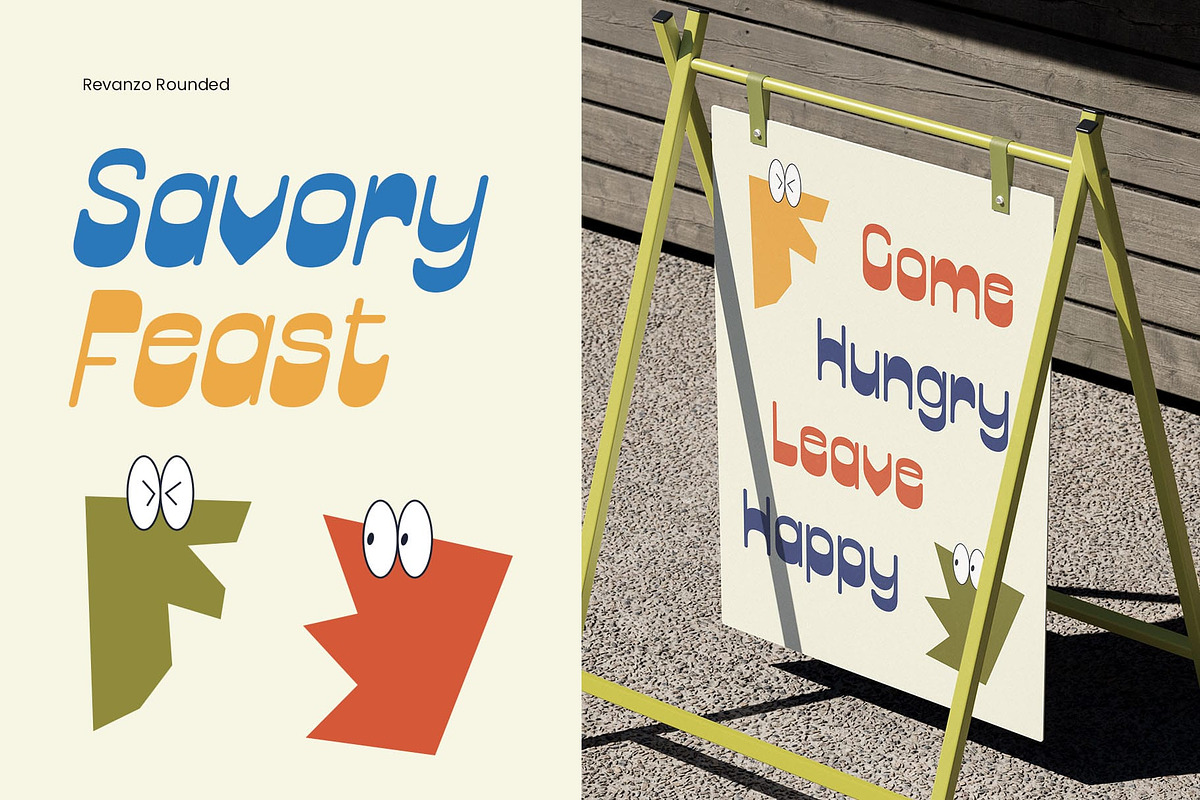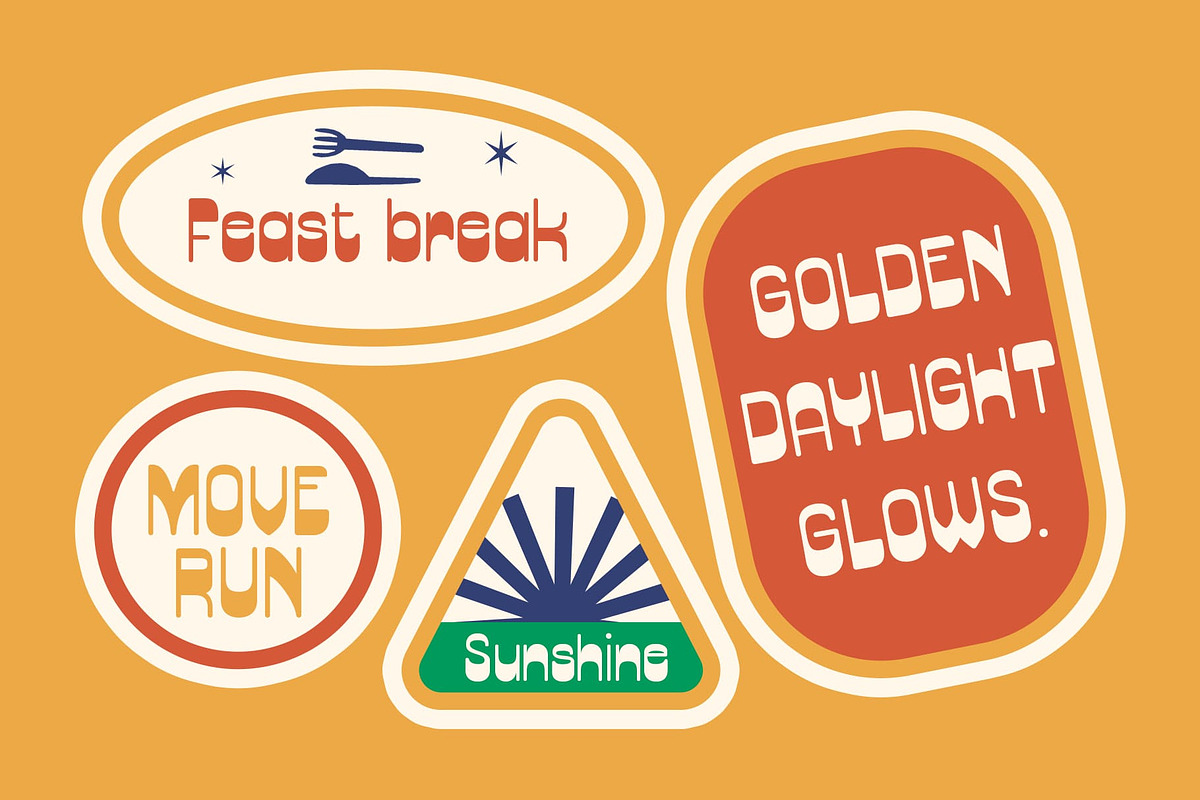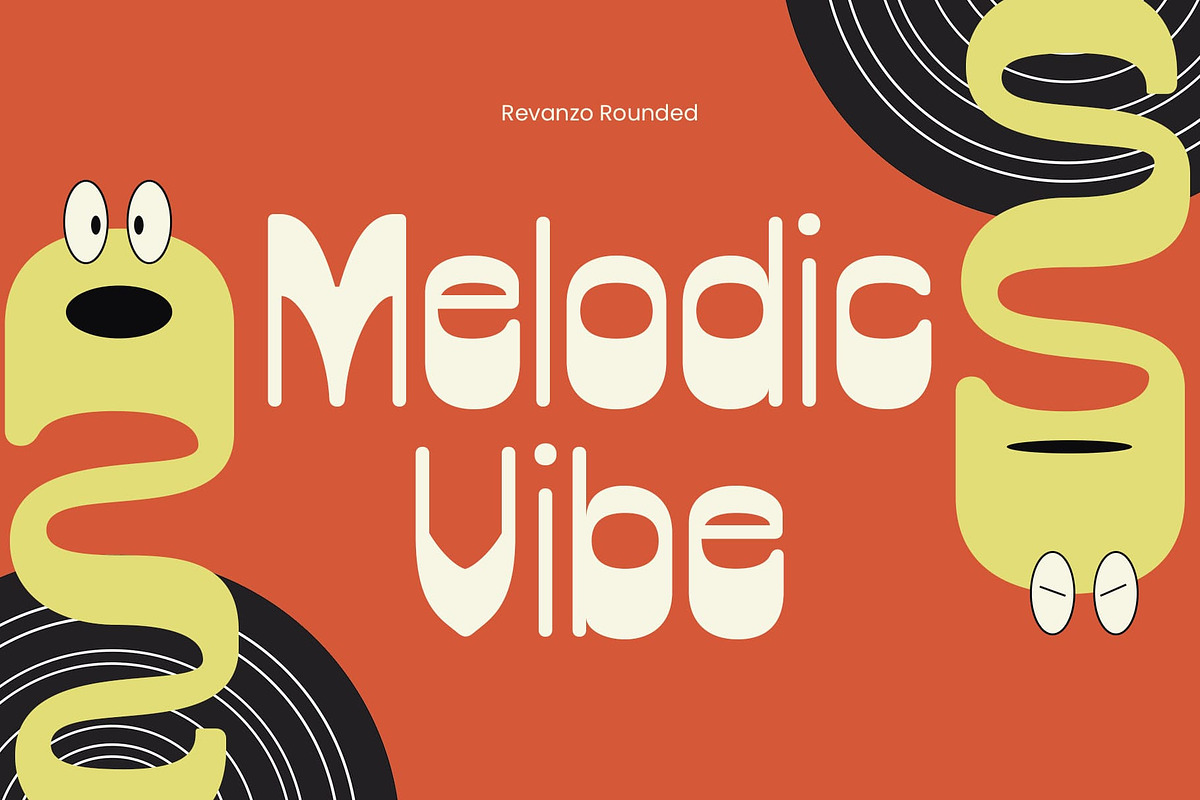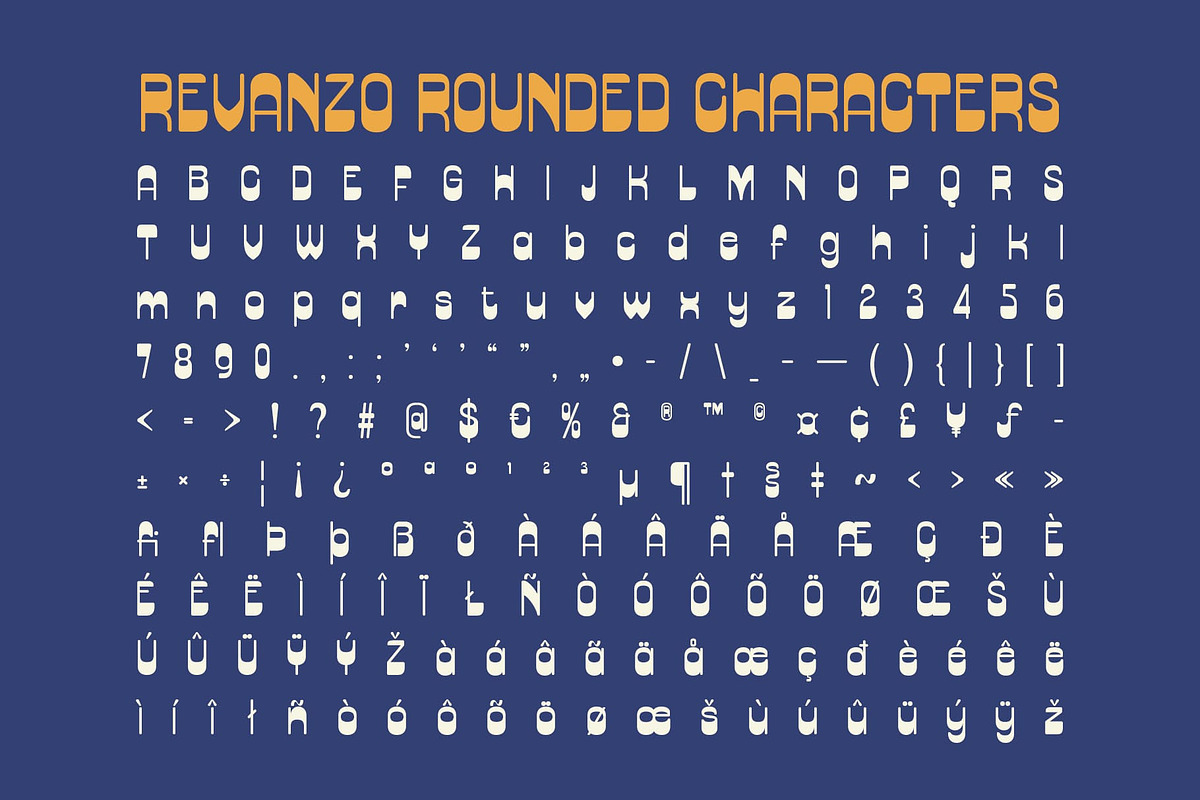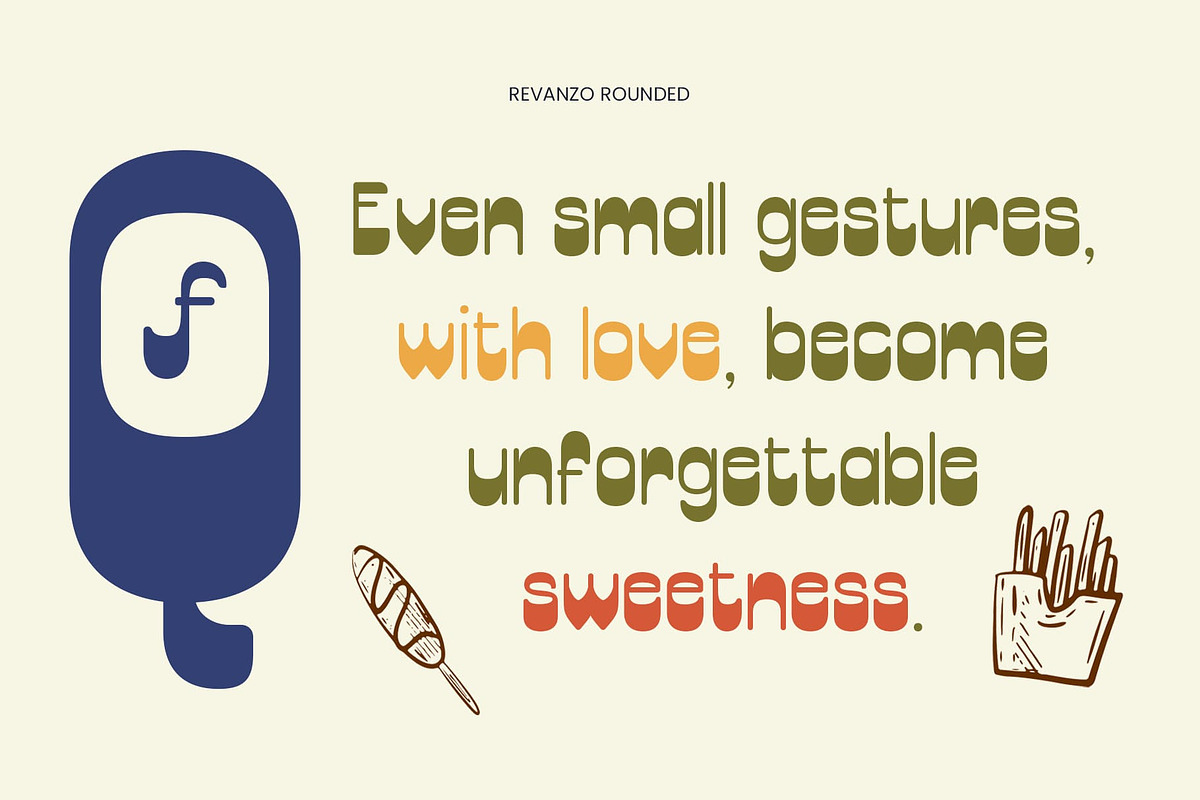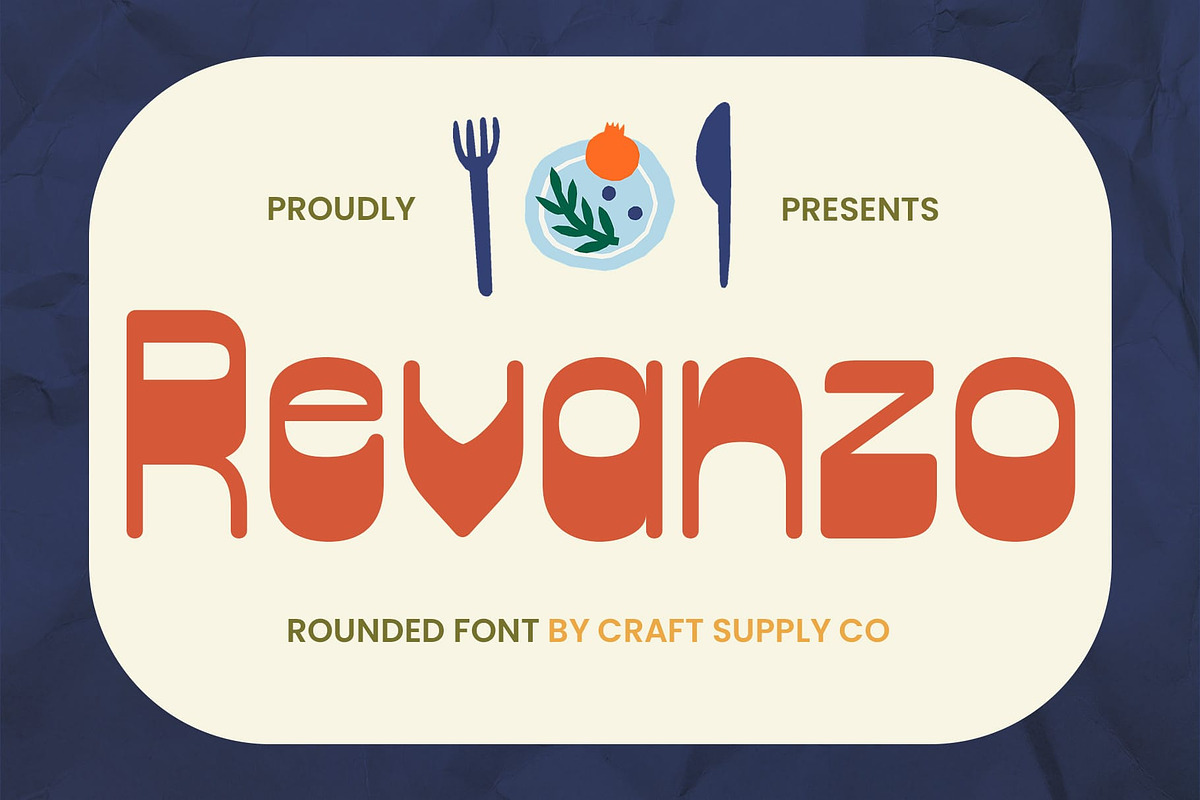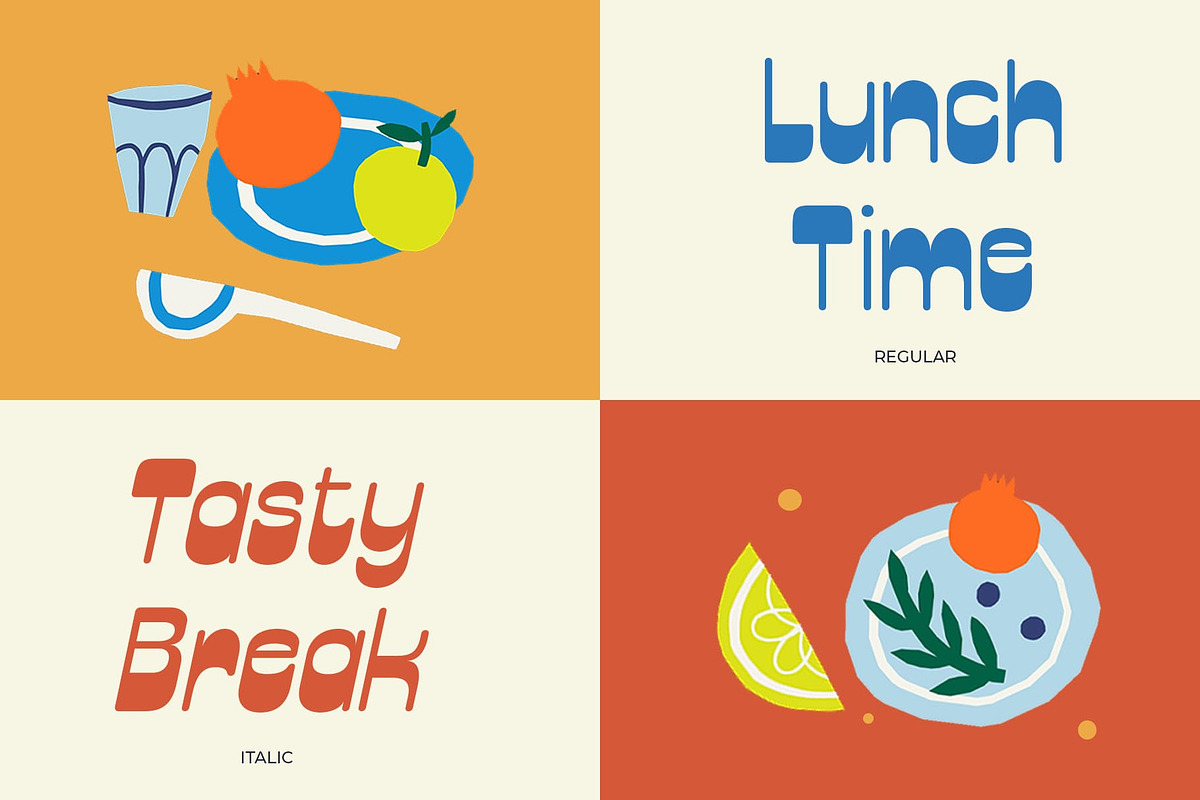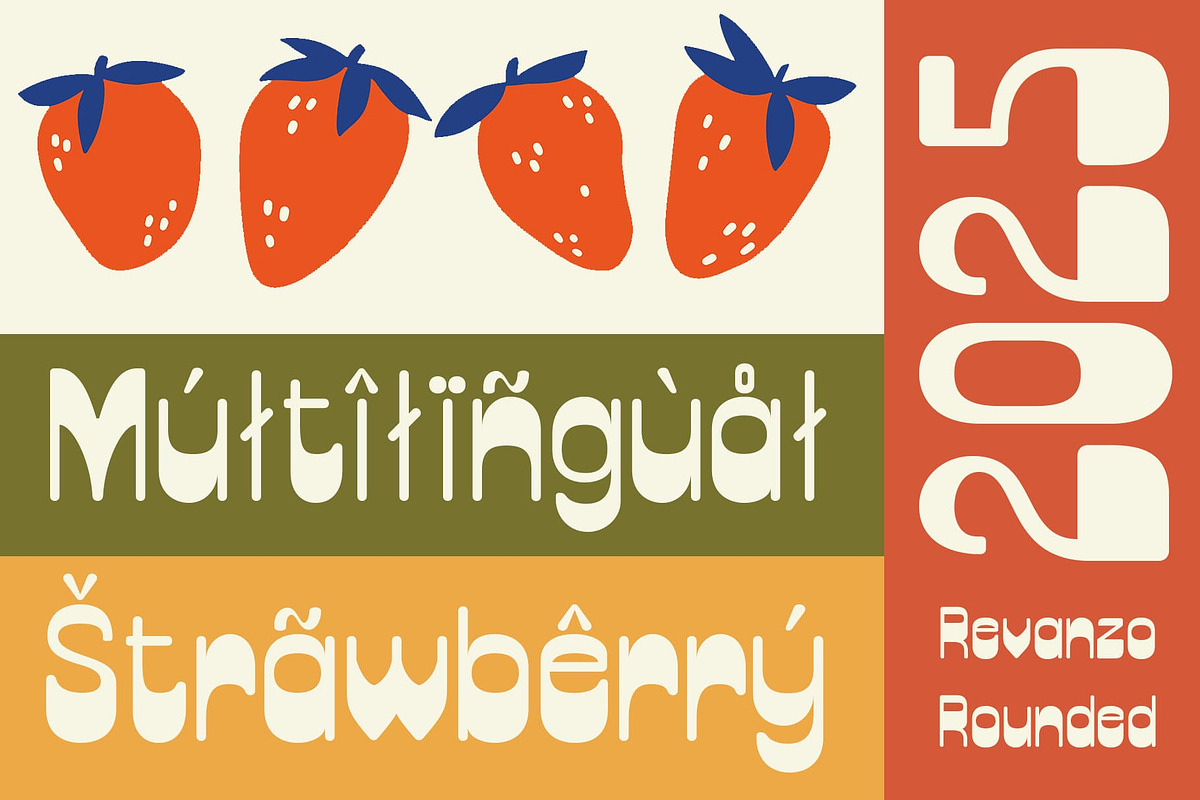
Revanzo Rounded
Revanzo Rounded Font – Retro Charm with a Soft Bold Twist
Reverse Contrast Sans-Serif with Rounded Style Revanzo Rounded is a sans-serif display font that blends a unique reverse contrast structure with smooth, rounded terminals. This combination creates a standout retro aesthetic that feels both bold and inviting—perfect for eye-catching, personality-rich design.
Reverse Contrast for Visual Interest The reversed contrast of thick horizontals and thinner verticals gives Revanzo Rounded a fresh and unexpected typographic rhythm. This unconventional structure injects energy and uniqueness, setting your designs apart from the ordinary.
Rounded Accents for a Friendly Feel Soft, rounded details on each character bring warmth and approachability, balancing the bold construction with a gentle, welcoming tone. It’s a perfect blend of playful and professional.
Retro Vibe with Modern Usability While rooted in a nostalgic aesthetic, Revanzo Rounded is crafted with contemporary clarity in mind. Its retro essence makes it ideal for projects aiming to blend vintage flair with modern appeal.
Perfect for Bold and Characterful Design From funky branding to standout packaging, posters, or lifestyle visuals, Revanzo Rounded brings bold personality to the forefront. It’s made for creatives who want to communicate fun, uniqueness, and memorability in their typography.